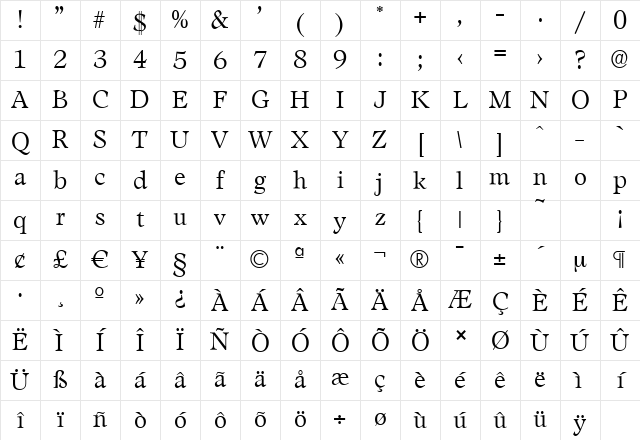
LeamingtonSerial-Light Regular
Design Context for LeamingtonSerial-Light
LeamingtonSerial-Light is a composed and adaptable typeface that performs quietly and consistently across a wide range of design contexts. Its slender proportions lend an understated elegance to any composition.